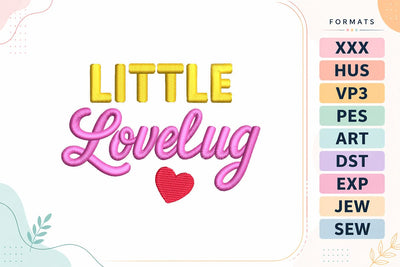
Little Lovely | Cute Baby Quote
This Little Lovely baby embroidery design is perfect for adorable baby outfits and nursery-themed projects. Featuring elegant script lettering with a cute heart detail, it’s ideal for baby bodysuits, bibs, blankets, nursery décor, baby shower gifts, and personalized keepsakes. Expertly digitized for smooth stitching and beautiful embroidery quality.